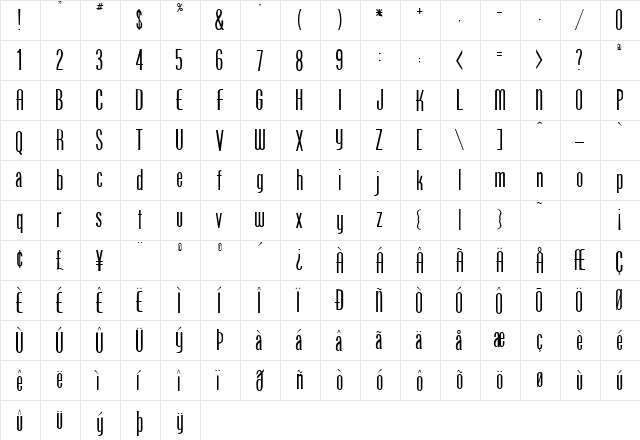
PT Signboard Normal
Design Context for PT Signboard Typeface
PT Signboard is a composed and adaptable typeface that performs quietly and consistently across a wide range of design contexts.